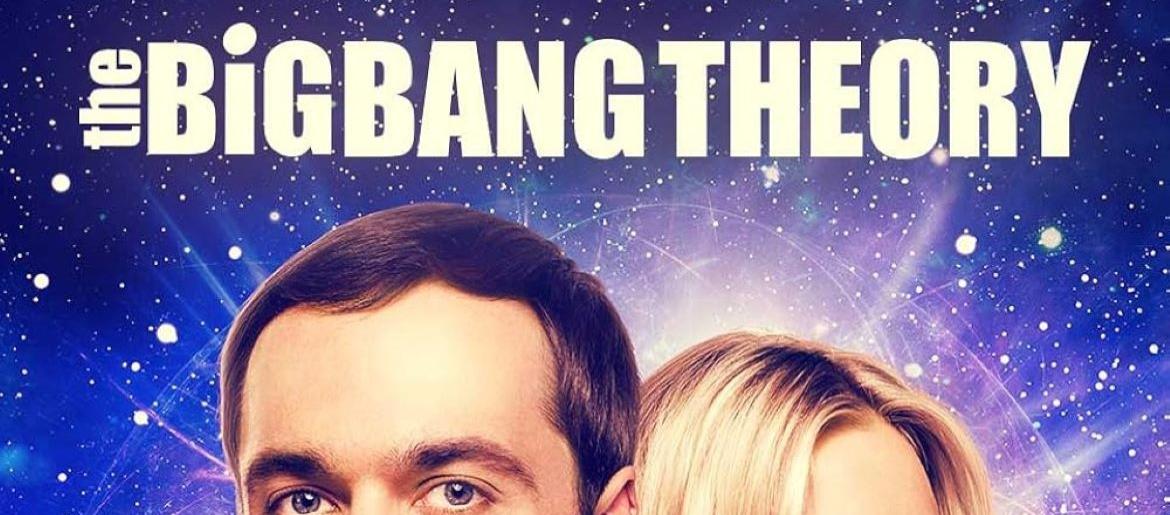
The Big Bang Theory Font
The Big Bang Theory Font brings a burst of fun and personality, mirroring the lively spirit of the sitcom. With its bold, comic-style lettering and energetic feel, it captures the show’s unique blend of humor, science, and geeky charm. The playful style is instantly recognizable, making it a great choice for fan art, themed designs, or any project that needs a lighthearted, expressive touch.
The typeface reflects the cheerful, nerdy energy of the series, making it perfect for designs inspired by science, comedy, or the show’s beloved characters. Its bold look ensures your text stands out while still keeping a fun, casual vibe.